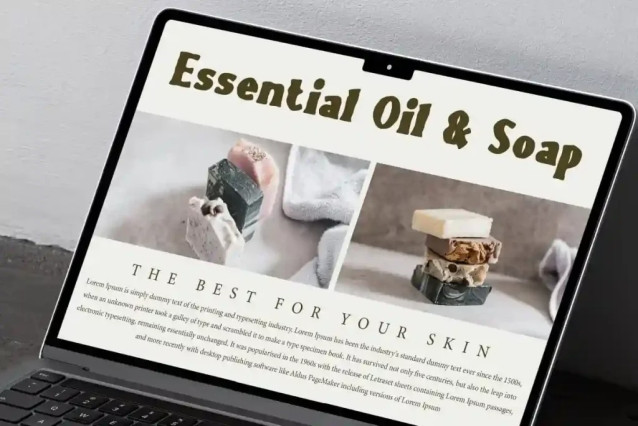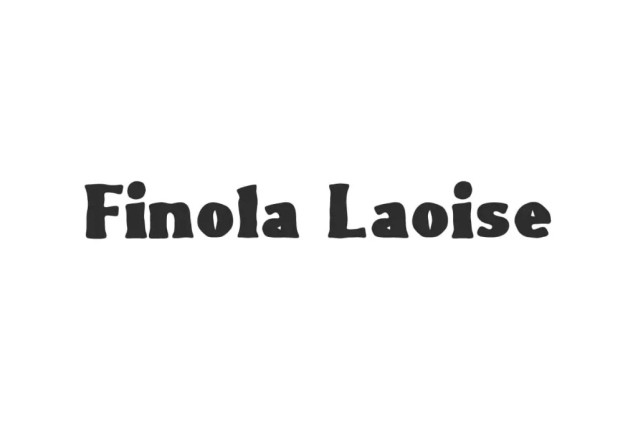
Finola Laoise Font
Finola Laoise Font is a playful stones theme with unique and inspiring vintage serif look. This font is designed a bit messy with a shaky shivering style, giving it a handmade classic feel so it will be suitable for blogs, brochure, flyers, greeting cards, headers, invitation, logos, menus, mockup, product label, signage, stationery, template, title, website, etc.
Finola Laoise Font includes full set of Uppercase and Lowercase Basic Characters, Numbers, Punctuation, and Symbols. Inspired by old movie titles, this typeface is here to transform your work into something stylish yet memorable! It will be very suitable for accessories, advertising, boutique, cafe, fashion, florist, graphic designer, restaurant, soap retail, and much more.